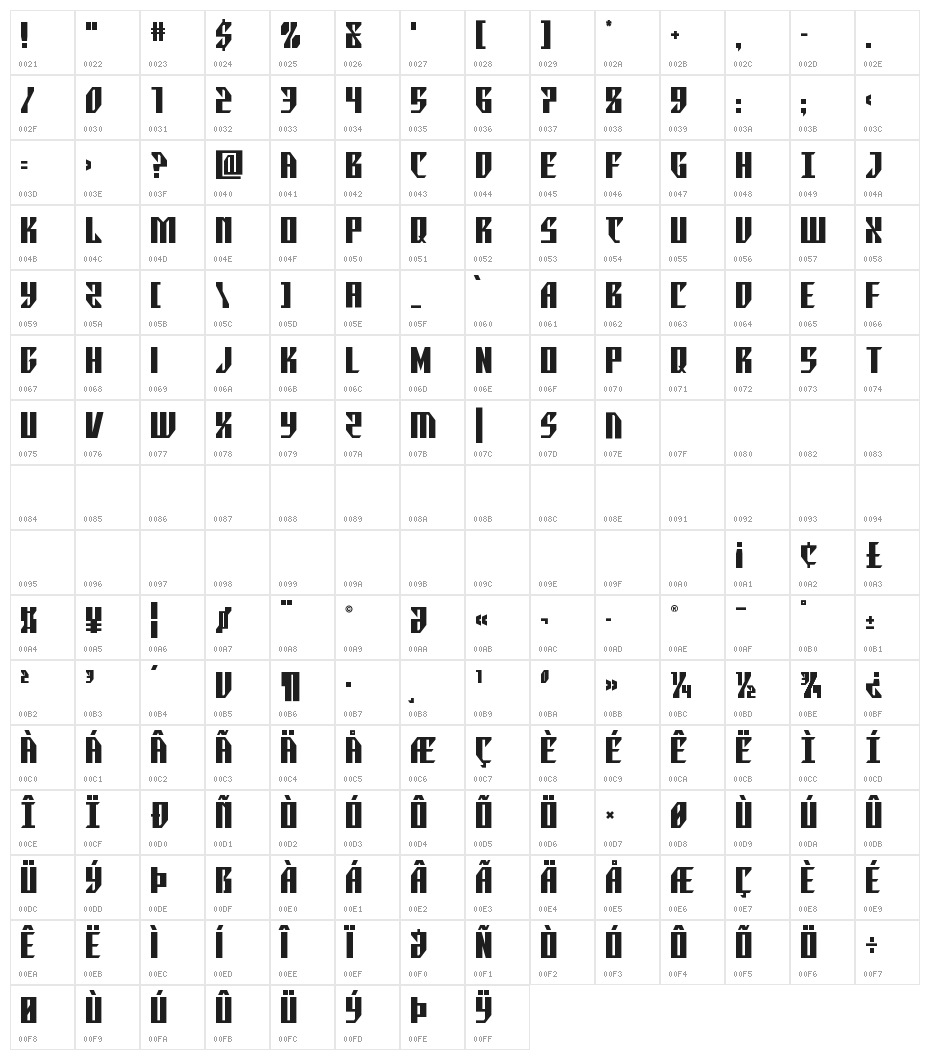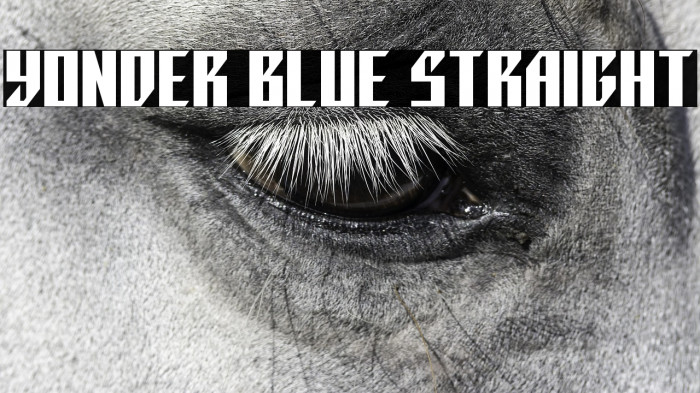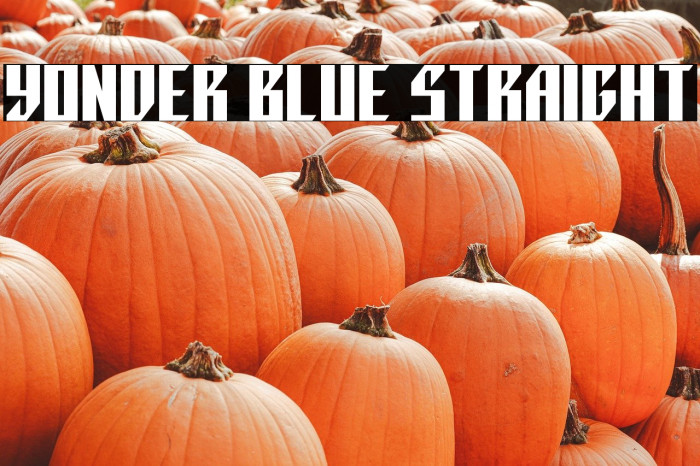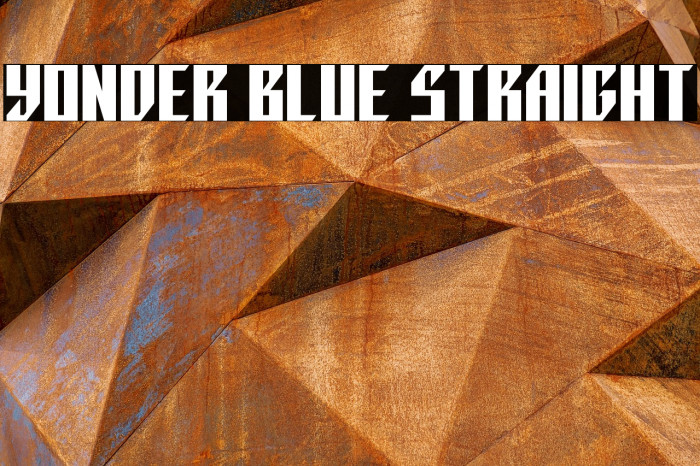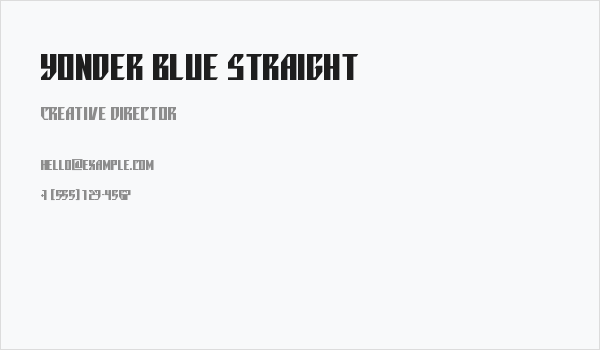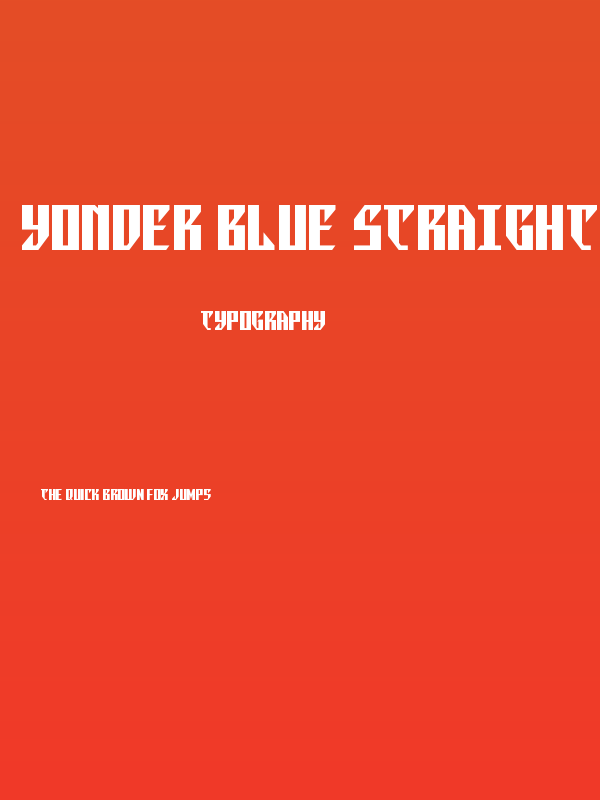
Yonder Blue Straight Font
Yonder Blue Straight Description
This font features a bold and angular design with strong geometric shapes. The characters are constructed with sharp edges and a uniform thickness, giving it a modern and industrial feel. The uppercase letters are particularly striking, with a consistent height and width that create a cohesive look. The lowercase letters maintain the same angular style, ensuring readability while preserving the font's unique aesthetic. Numbers and special characters are designed to match the overall style, making this font versatile for various applications. Its bold presence makes it ideal for attention-grabbing headlines and impactful designs.
Proposed ProjectsIdeal for branding, posters, headlines, and any design requiring a strong, modern impact.